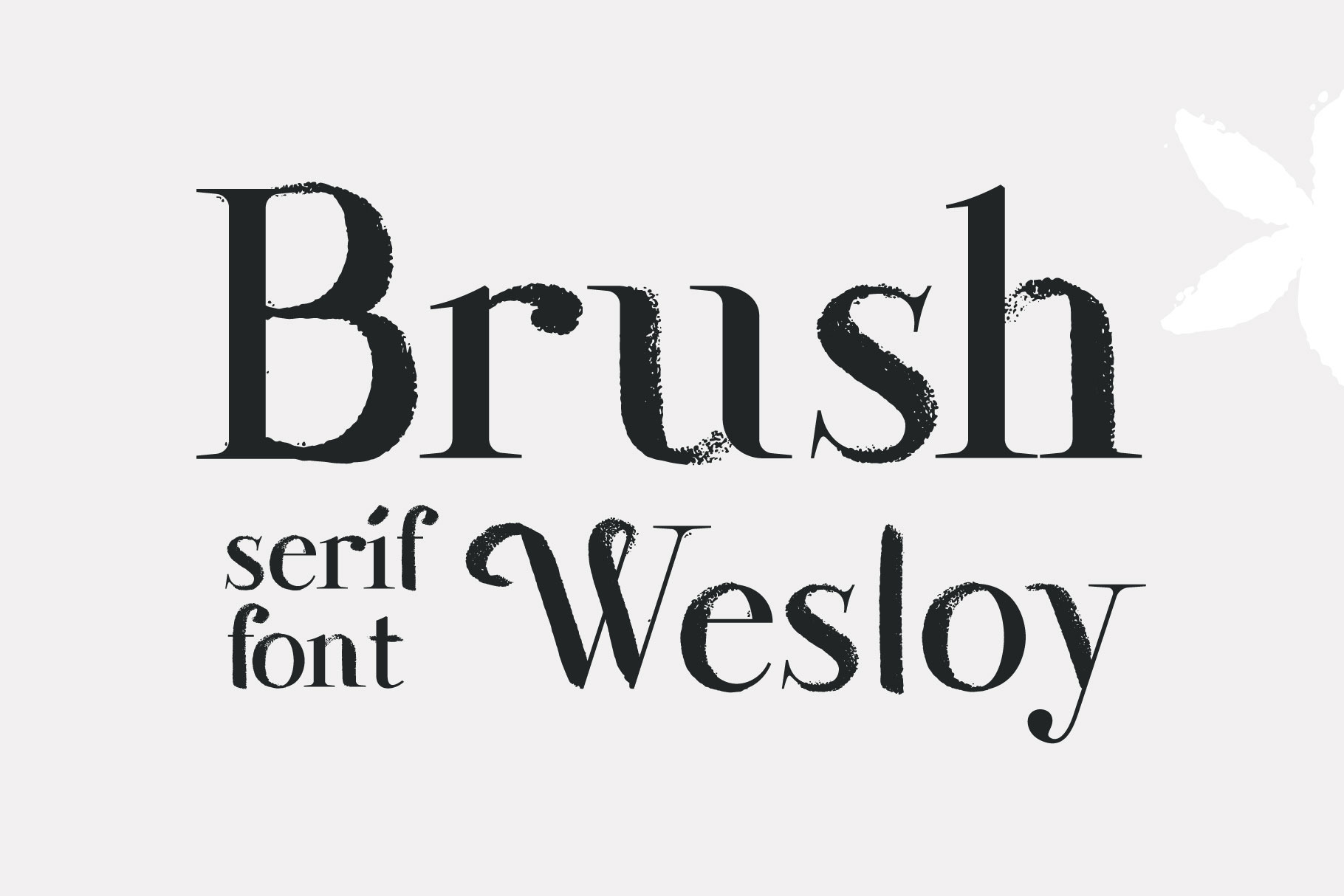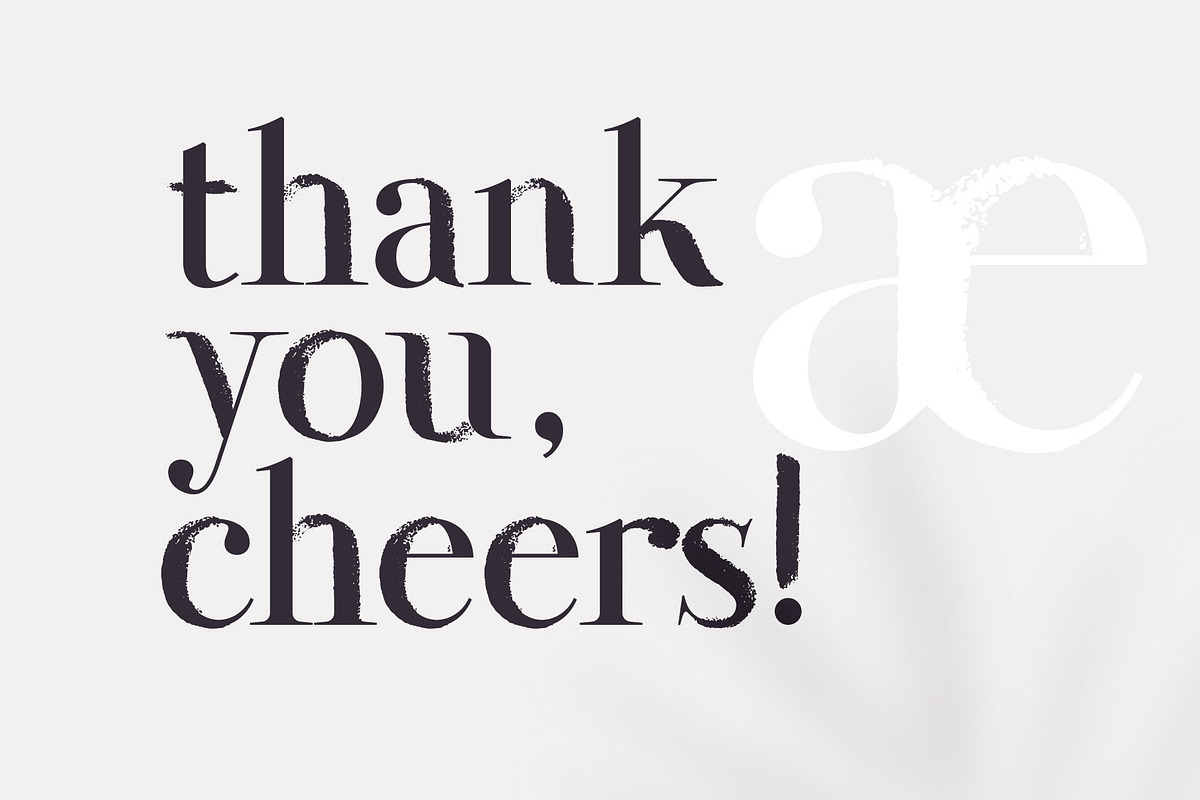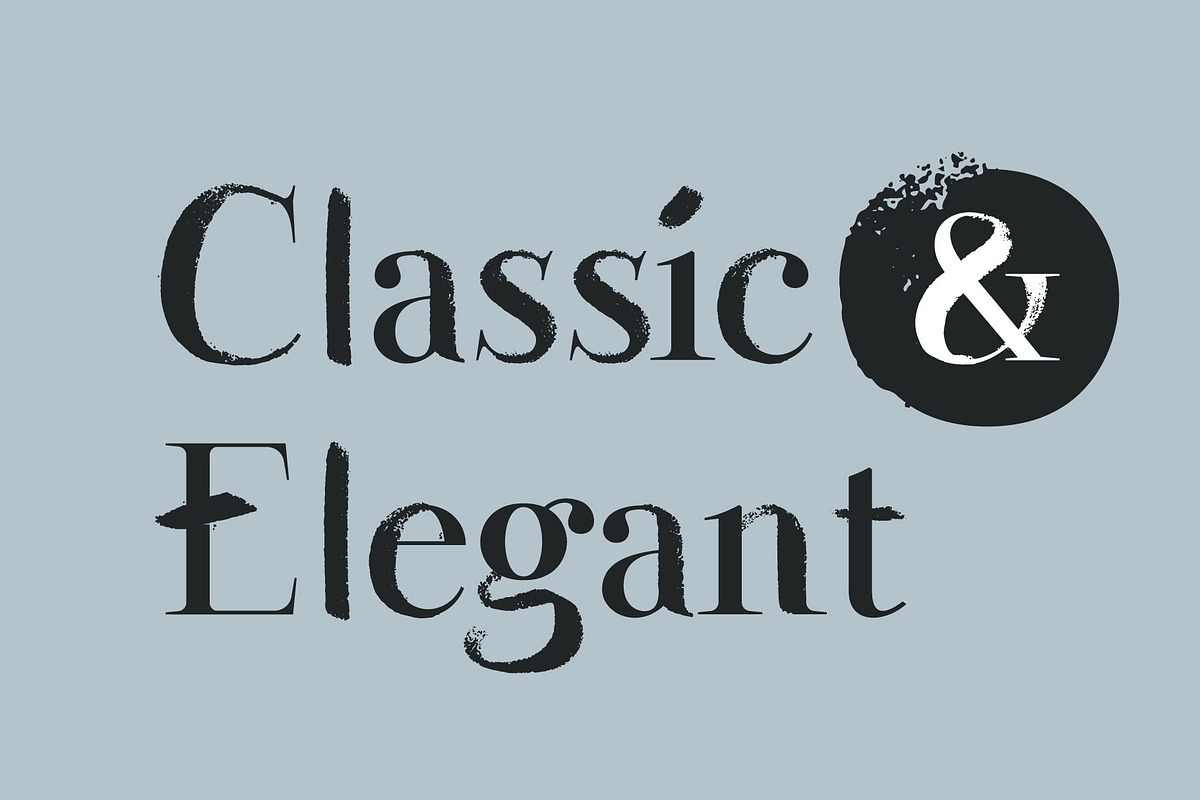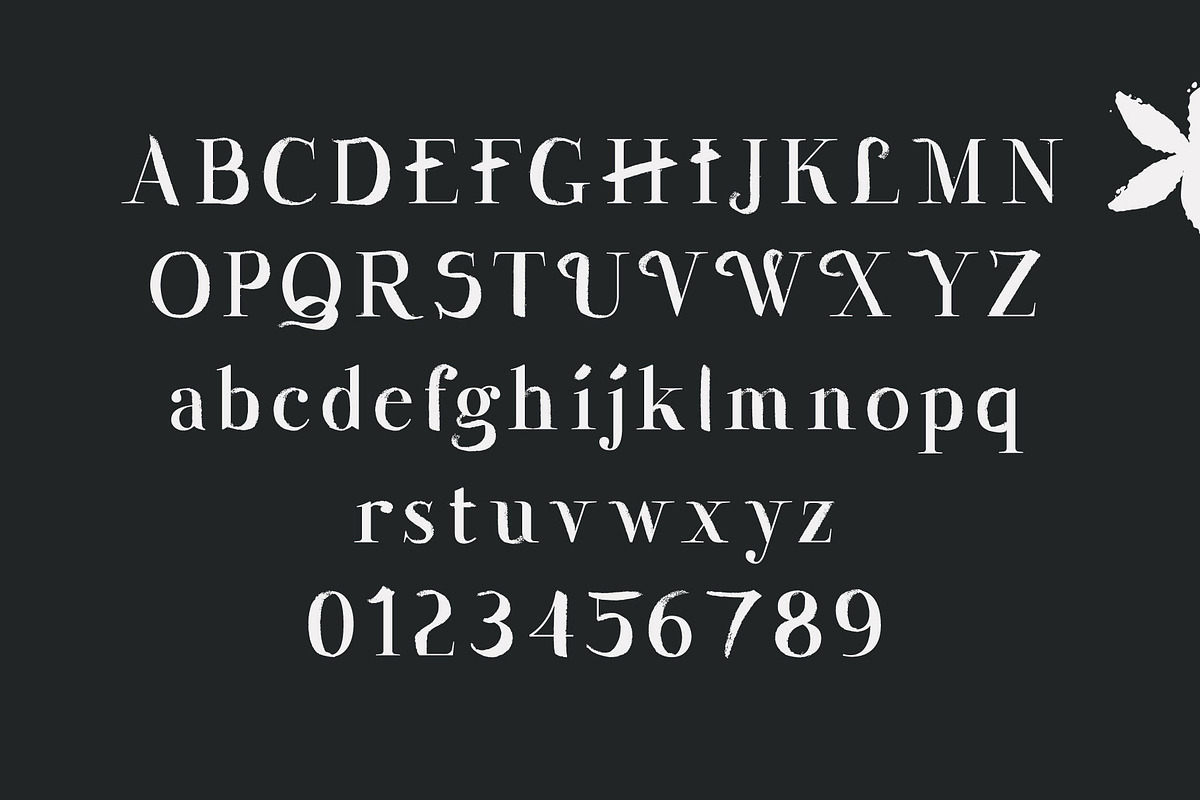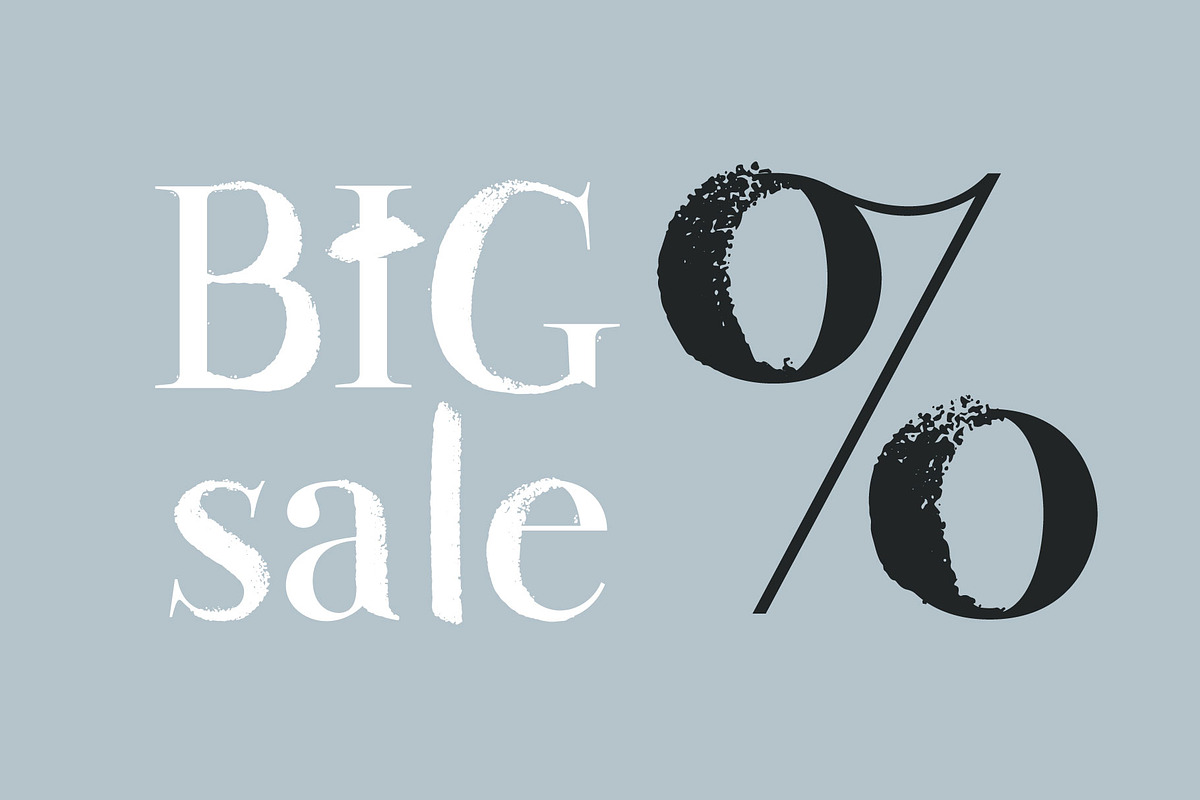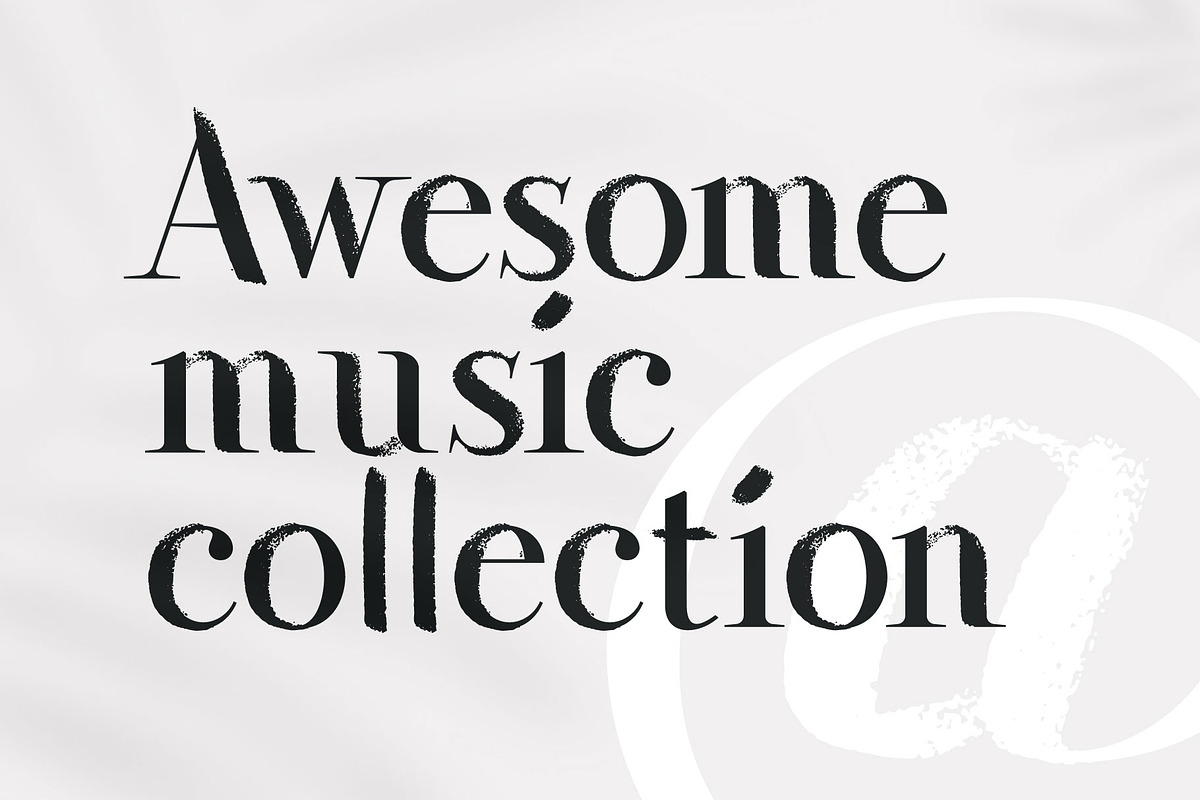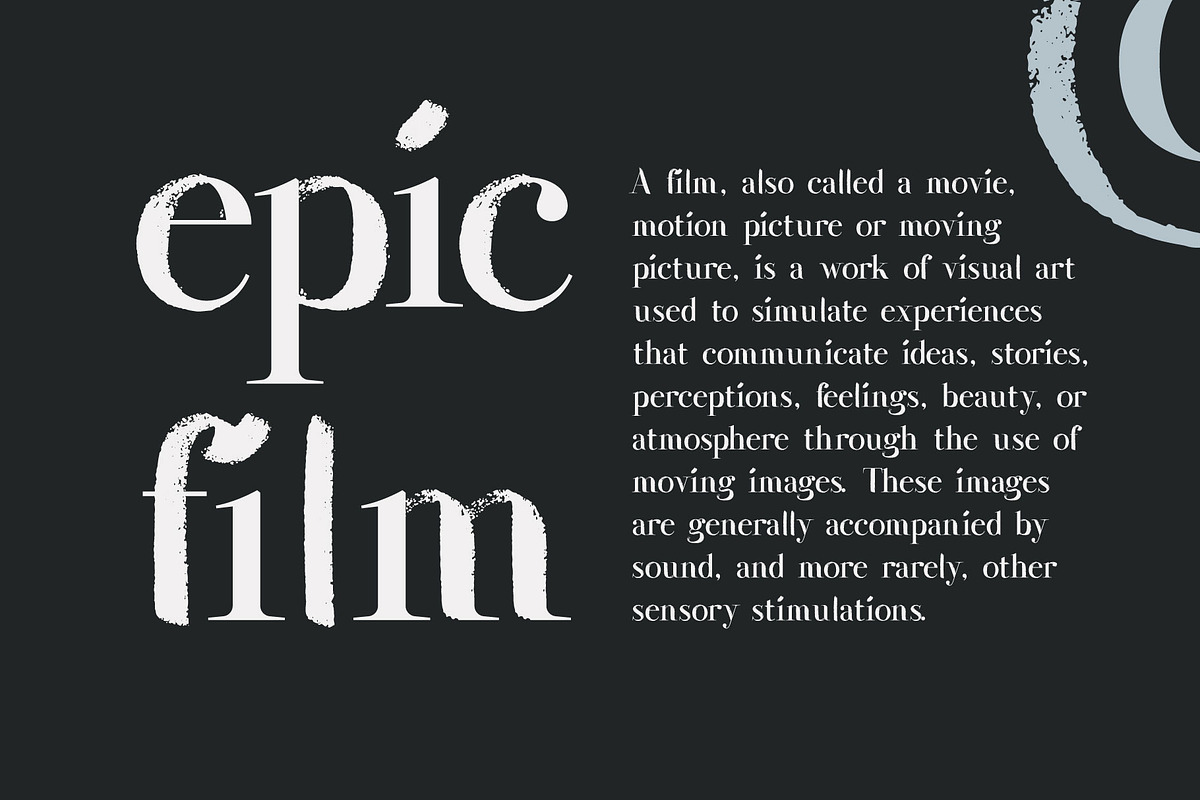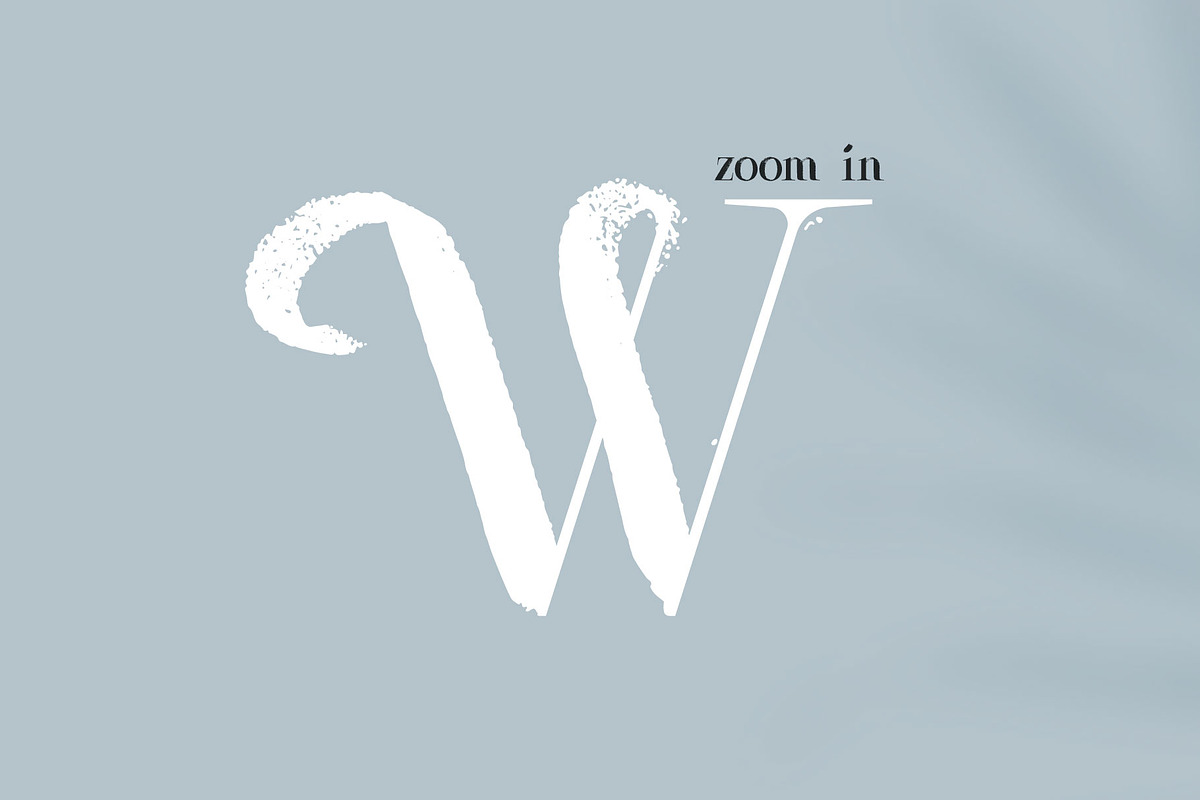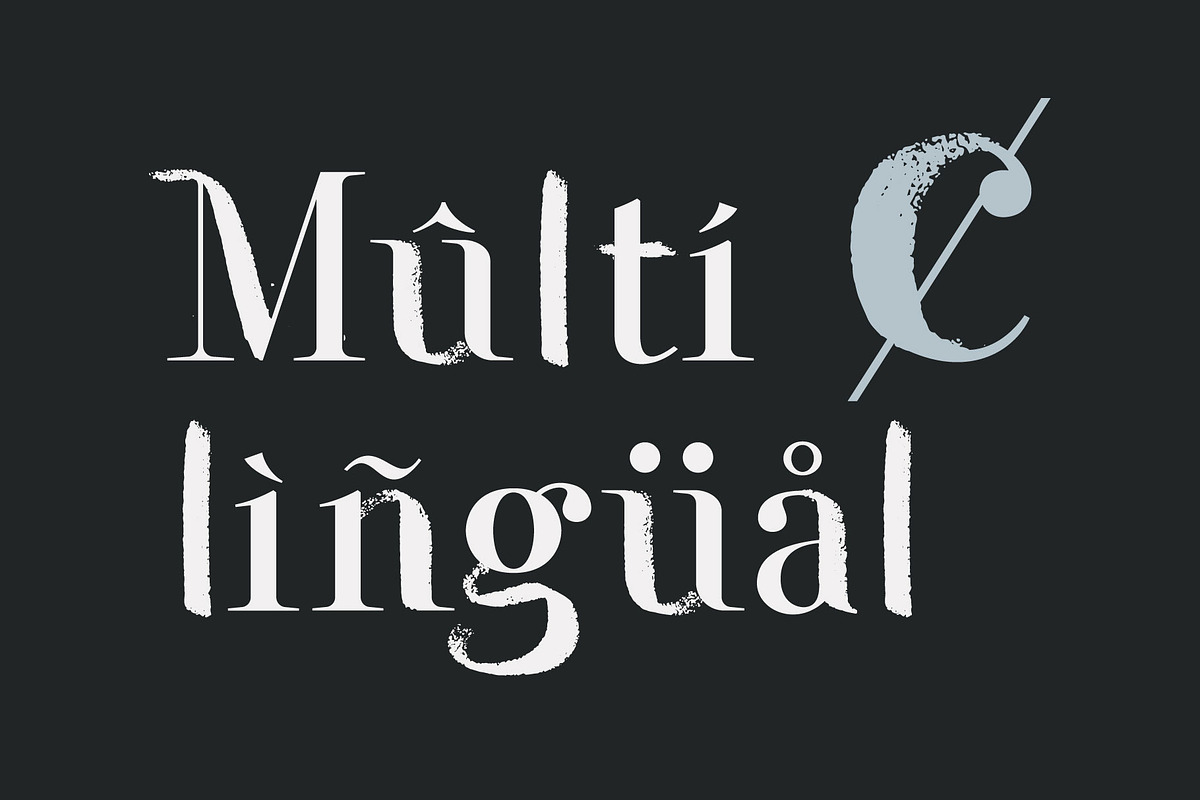
Wesloy dry brush serif font
Introducing my new brush serif typeface Wesloy. Vintage font with unique dry strokes with rough edges decoration elements. Perfect to use in any fashion labels, glamour posters, luxury identity, etc.
- Uppercase and lowercase glyphs
- Numbers and symbols